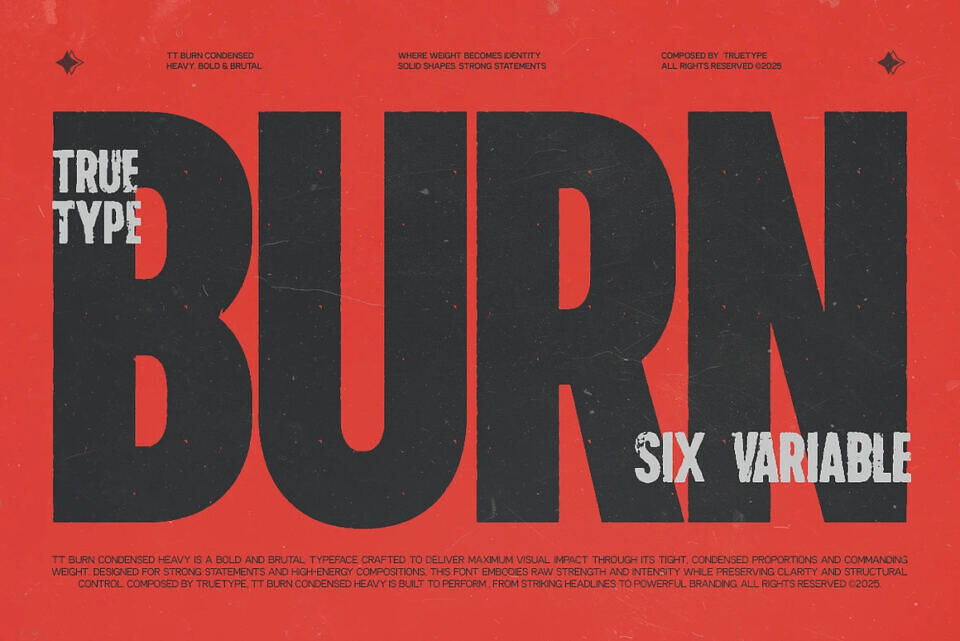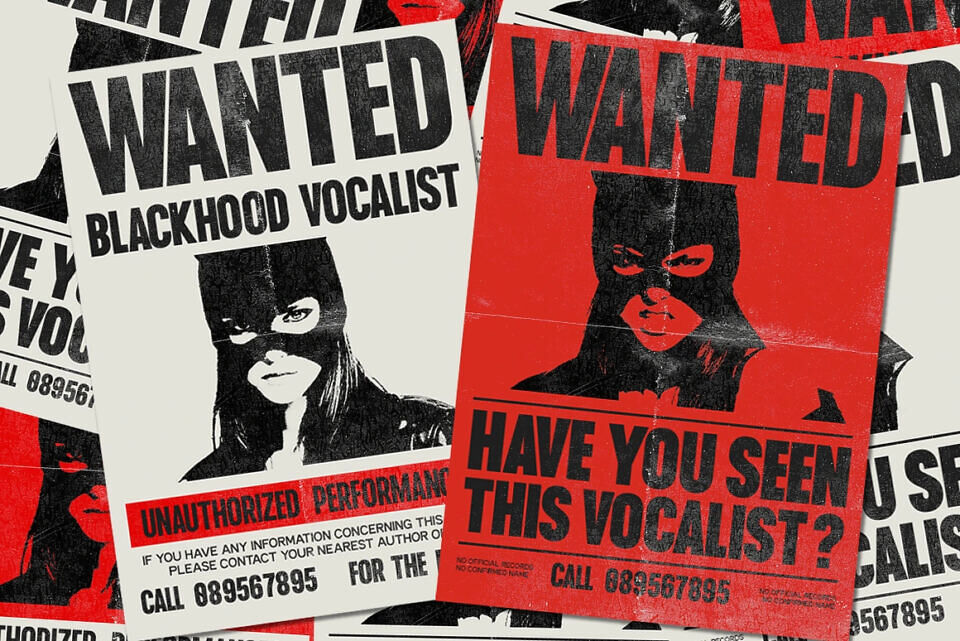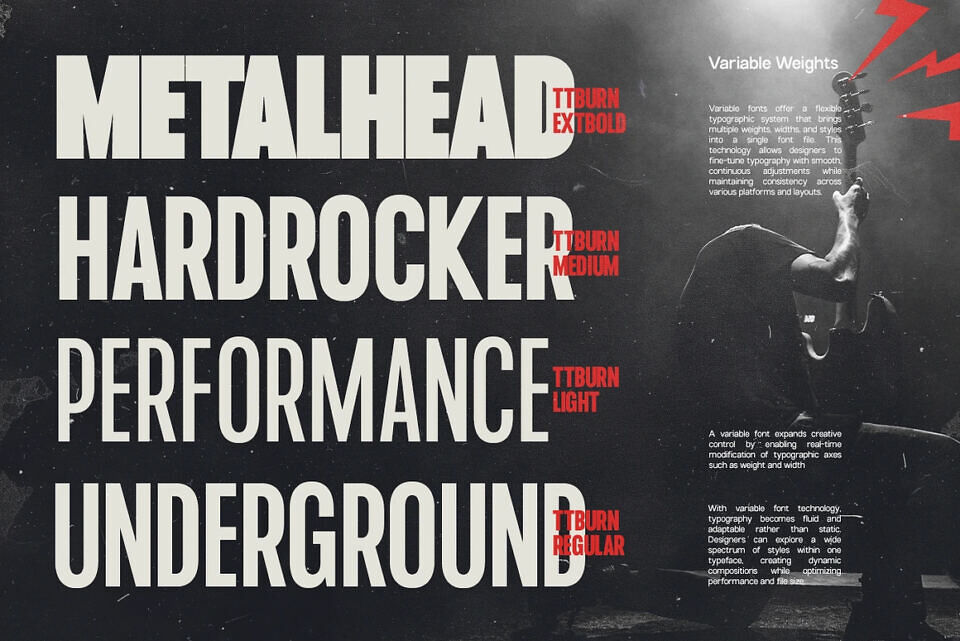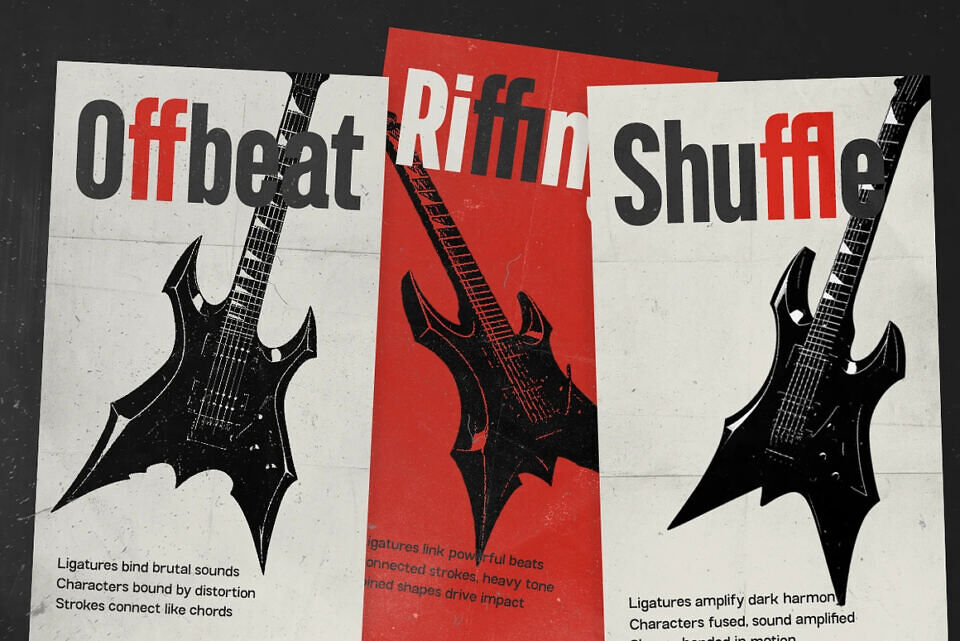
TRT Burn is a modern condensed sans serif typeface designed to deliver strong visual impact, efficiency, and clarity for contemporary design needs. Built with a compact width and confident vertical proportions, Burn is optimized for branding, headlines, and space-conscious layouts that demand presence without excess width.
Its condensed construction allows designers to fit more content into tighter spaces while maintaining excellent legibility and a clean, professional appearance. TRT Burn is crafted as a versatile type system for branding, editorial design, advertising, posters, packaging, web interfaces, UI design, and digital products.